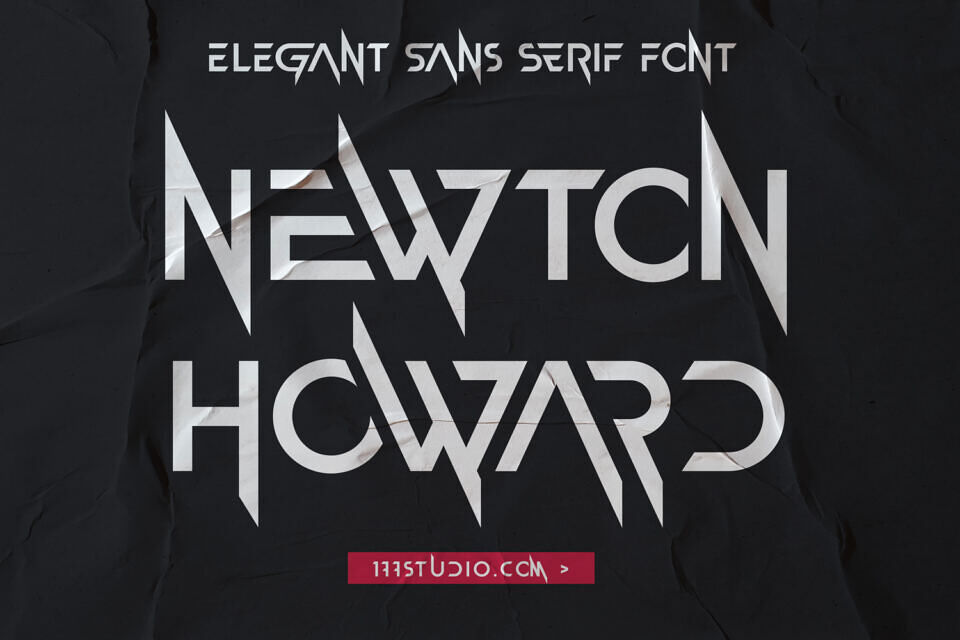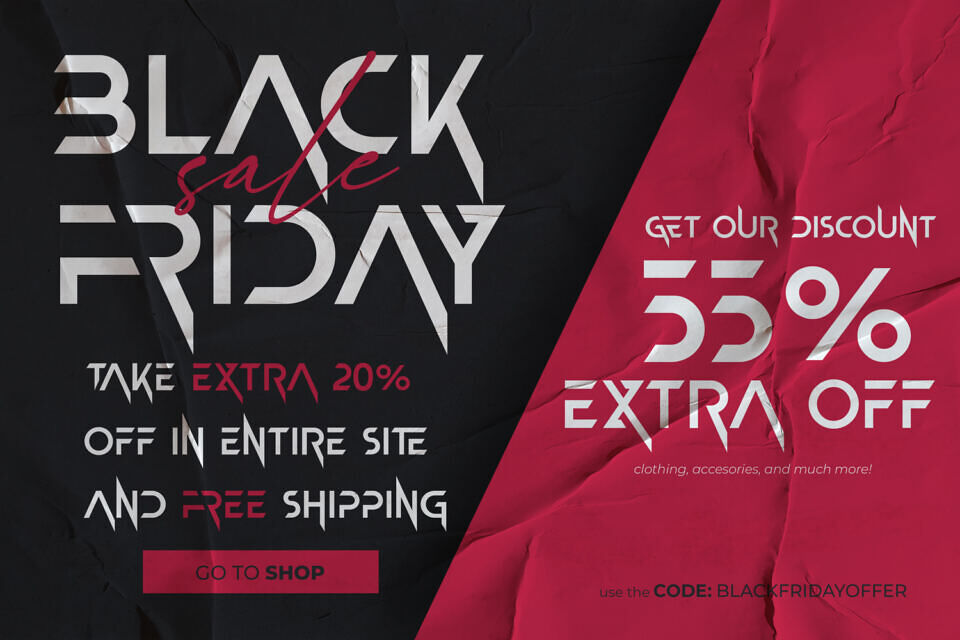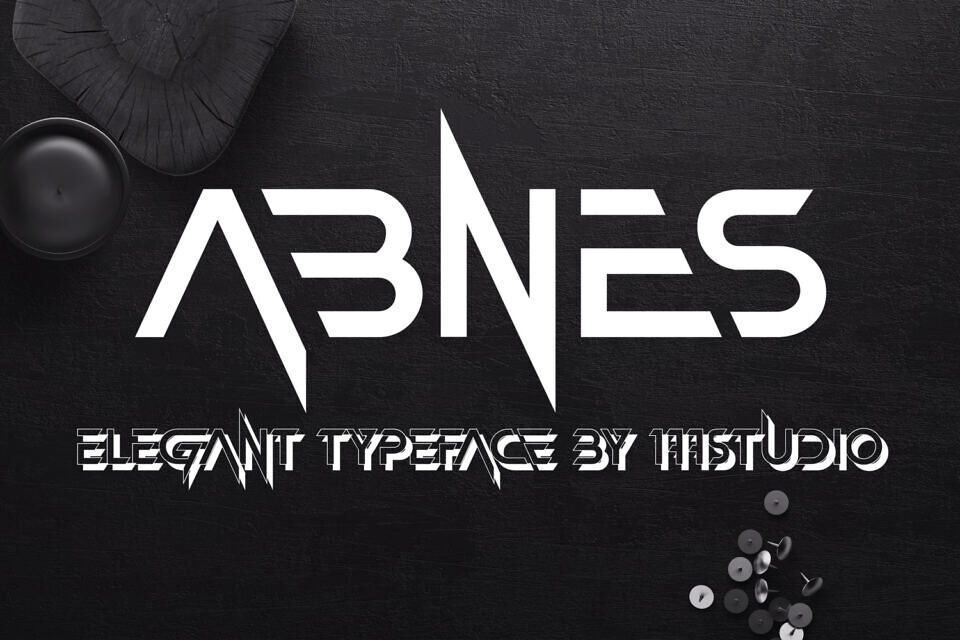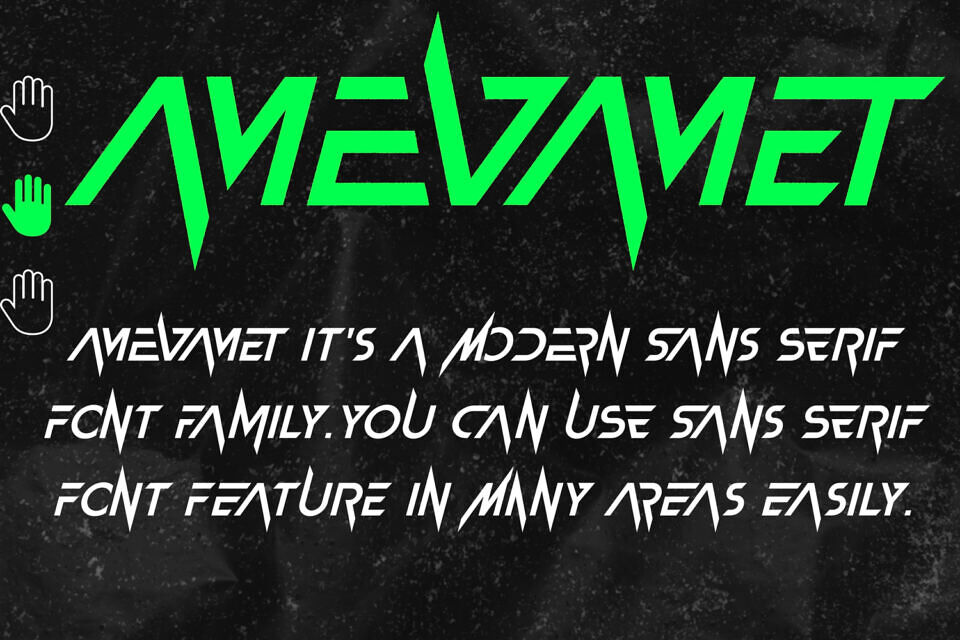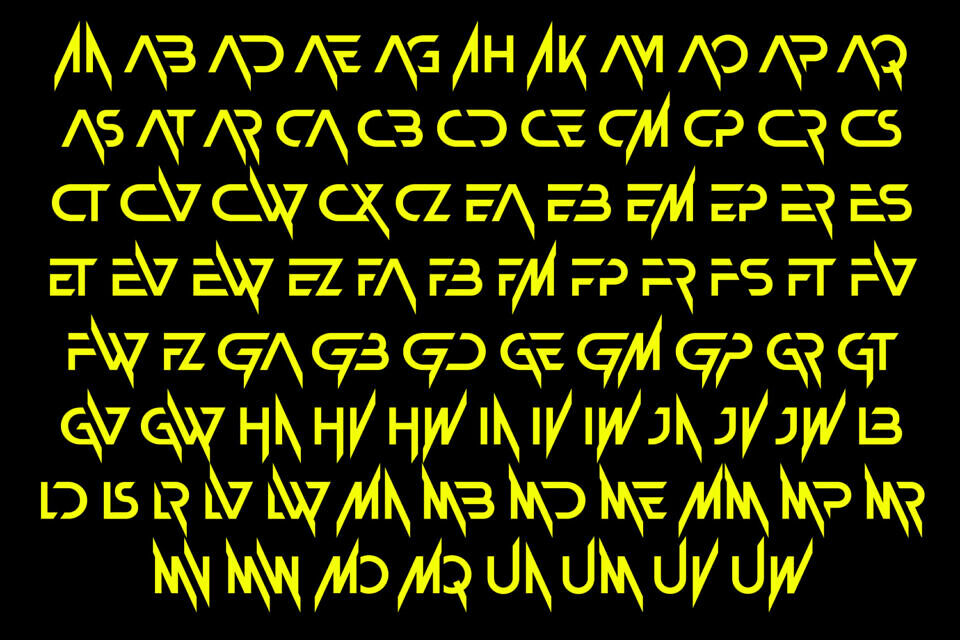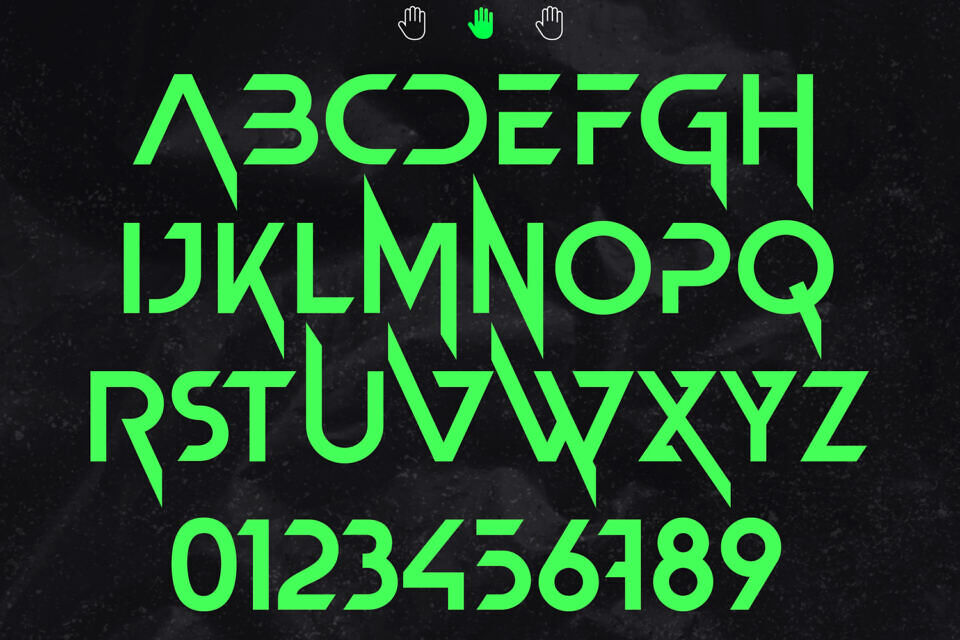
Newton Howard Font
Newton Howard Font offers a futuristic look with sharp, geometric lines, making it ideal for tech-themed designs. With various OpenType features, this font is versatile and suitable for multiple graphic design applications, including web design, packaging, and logo creation.